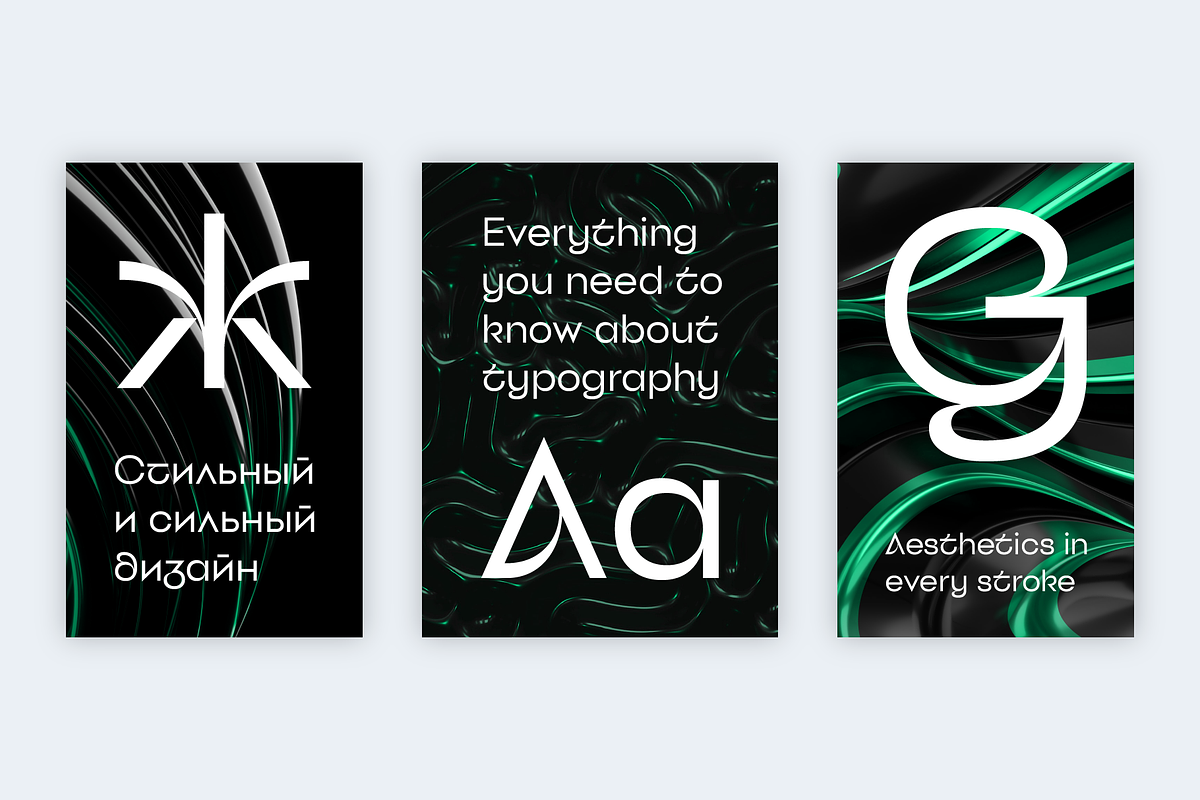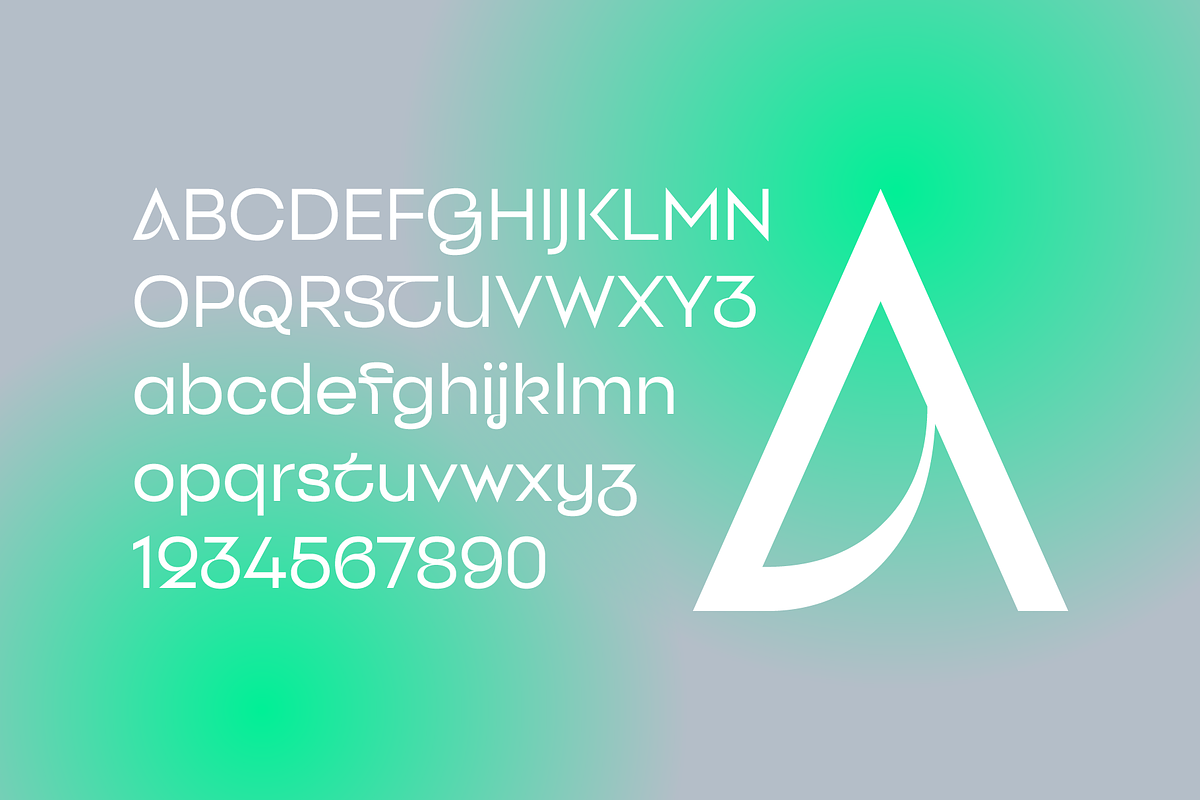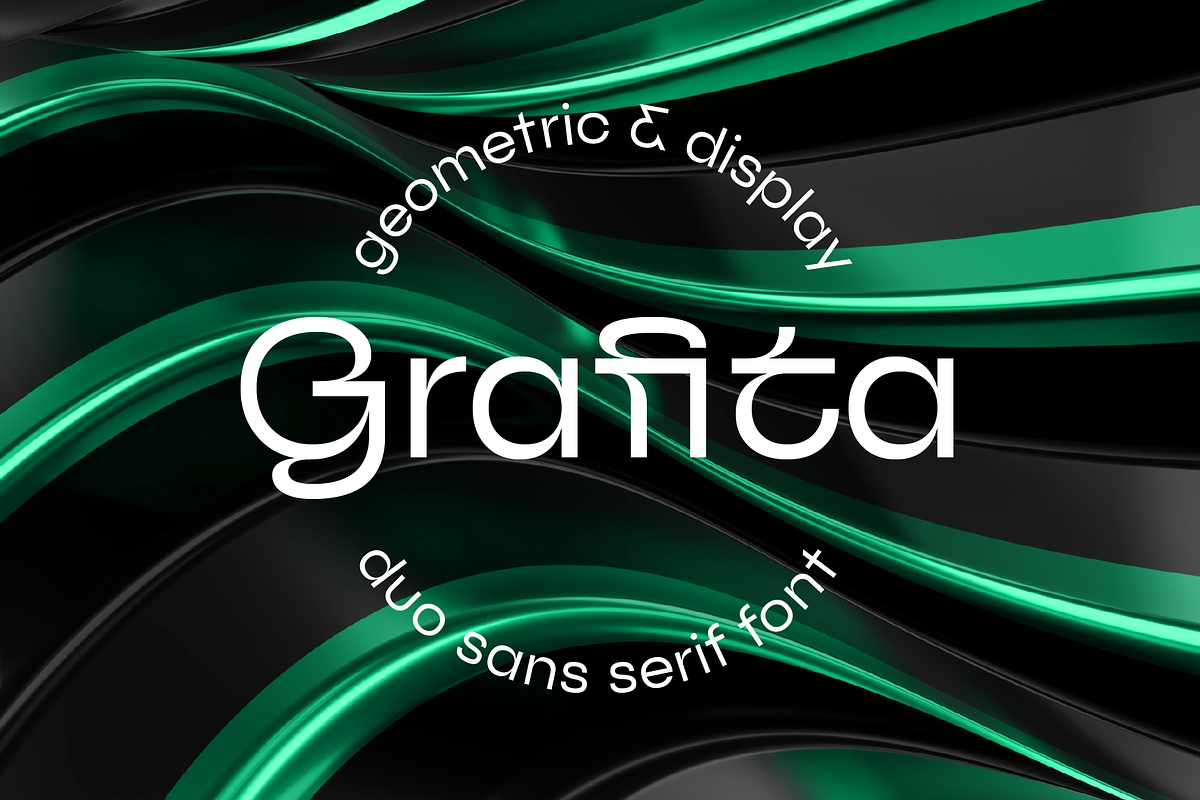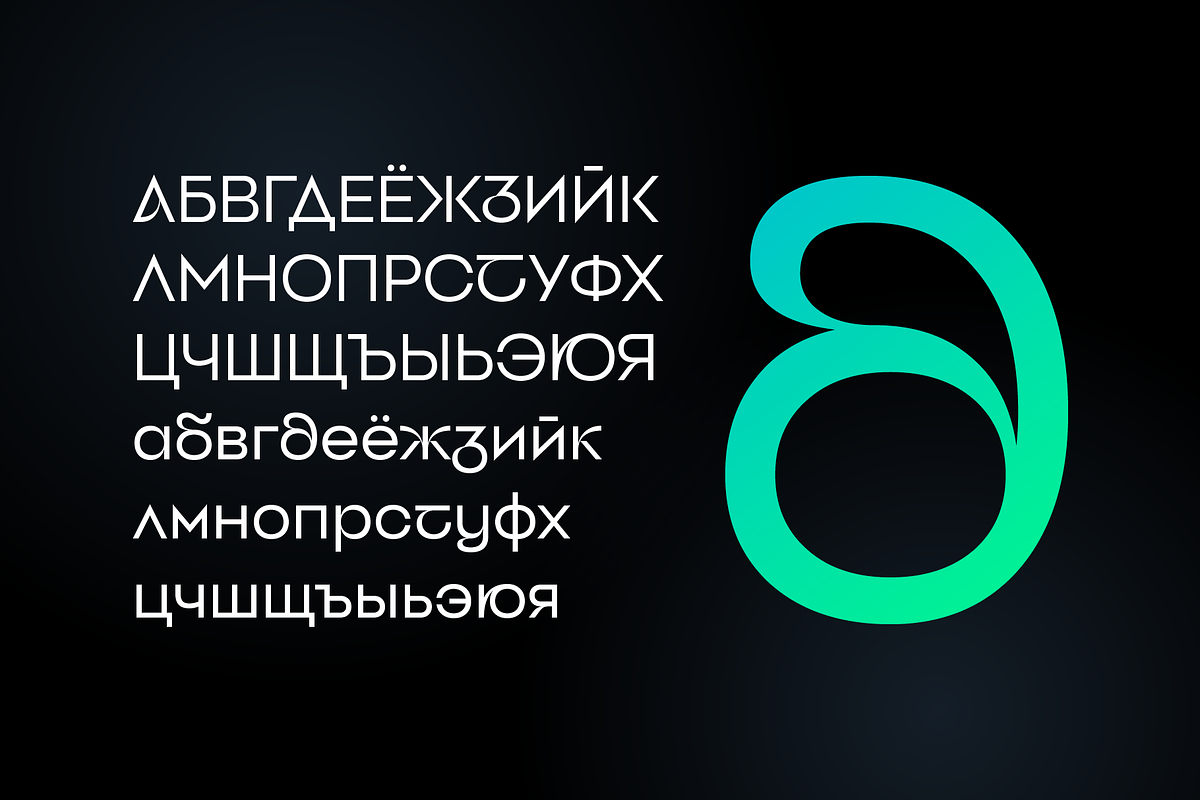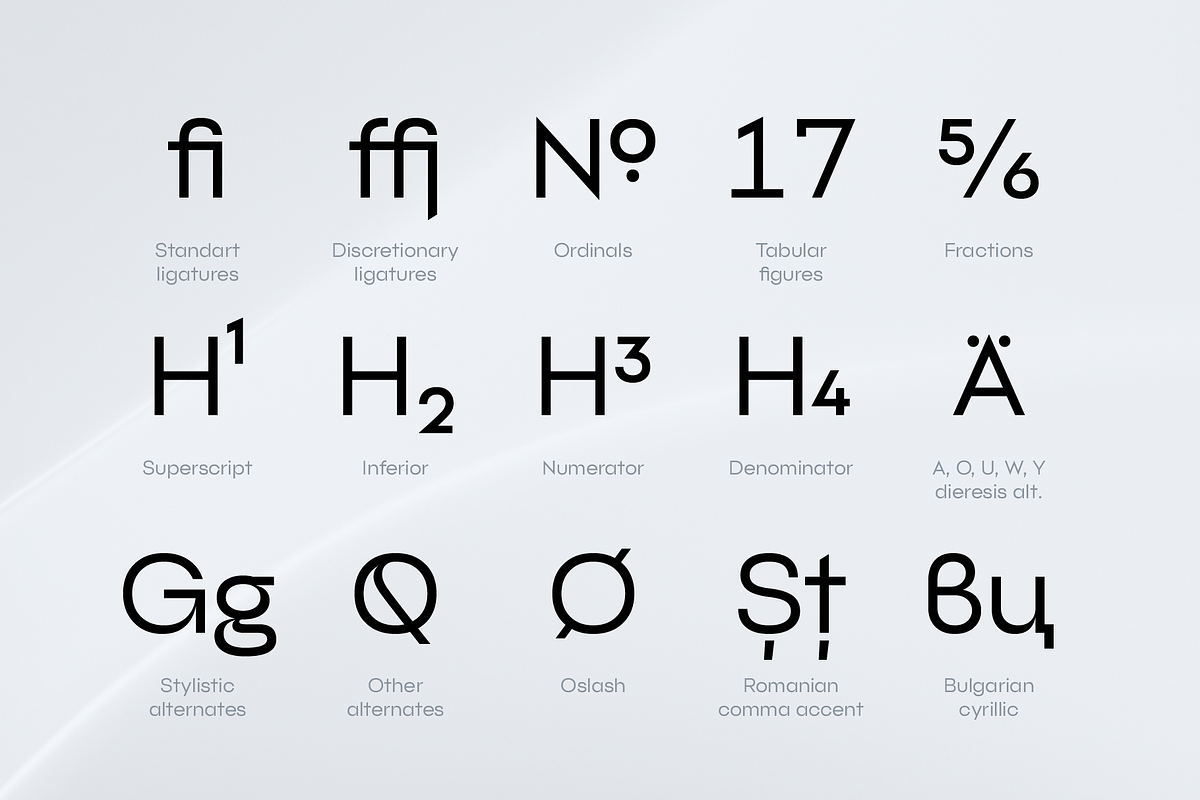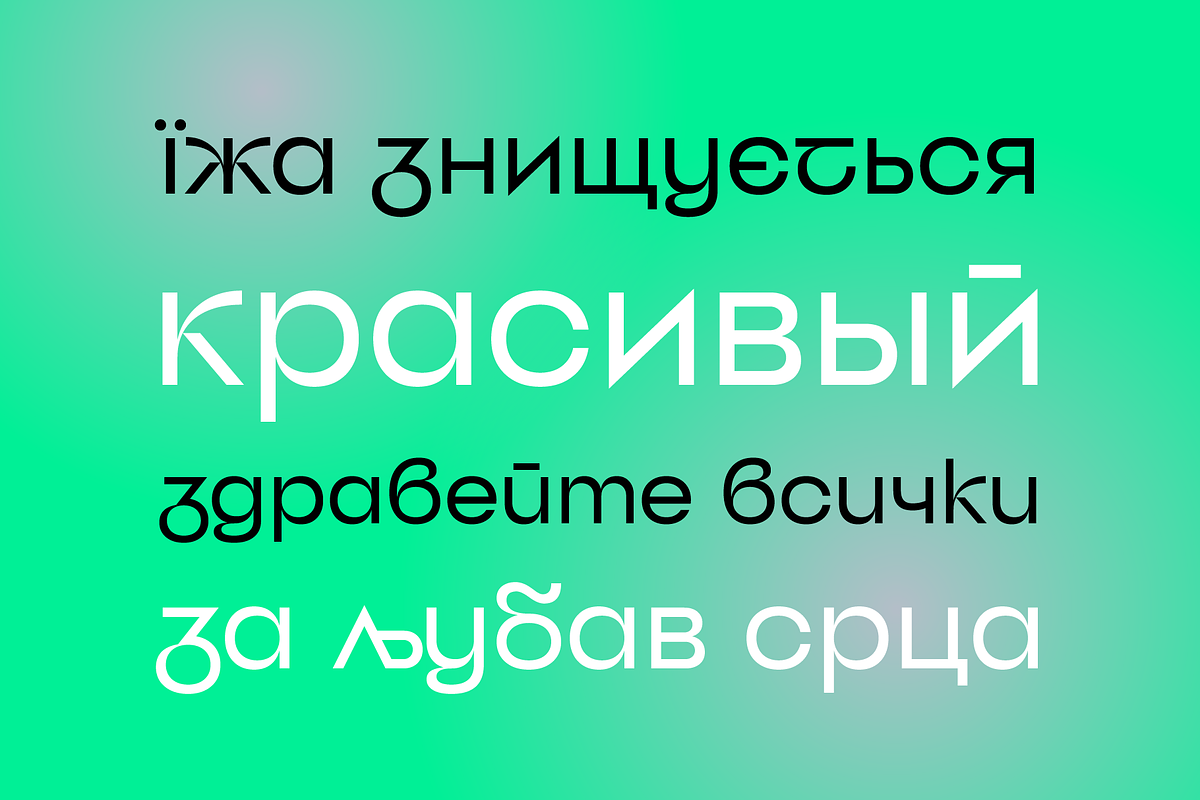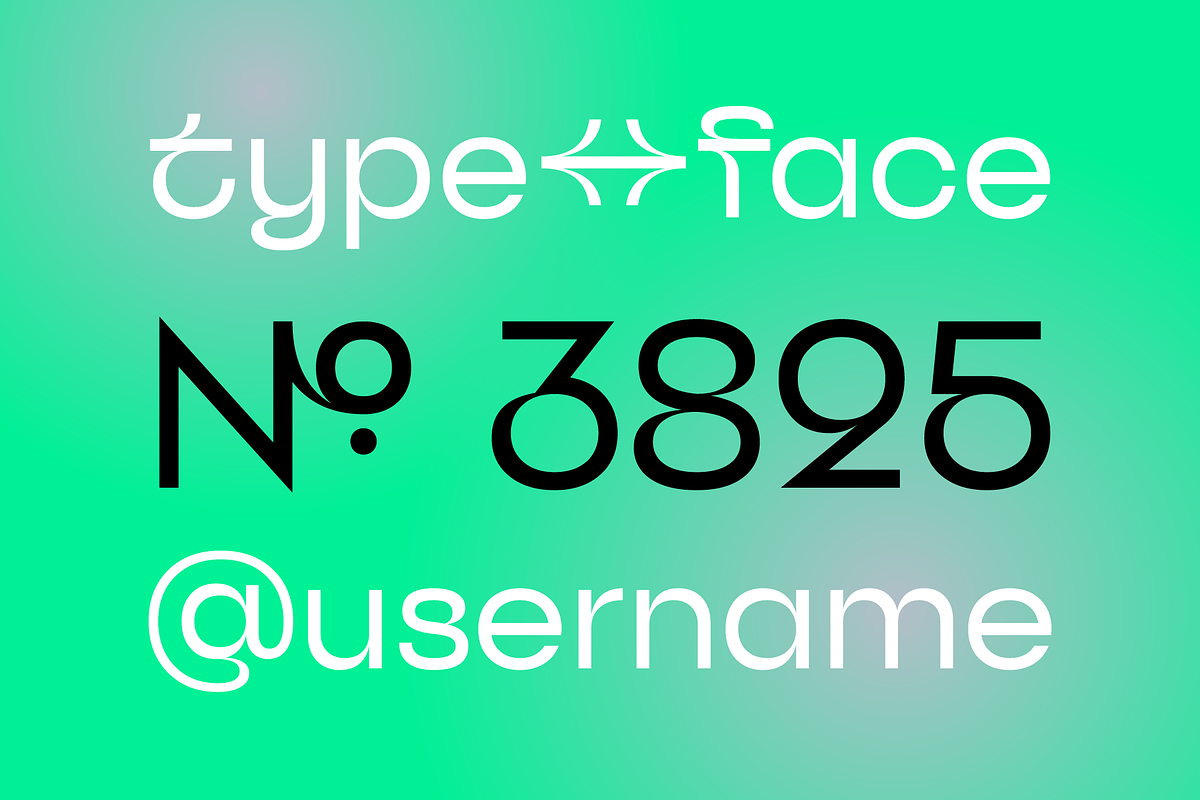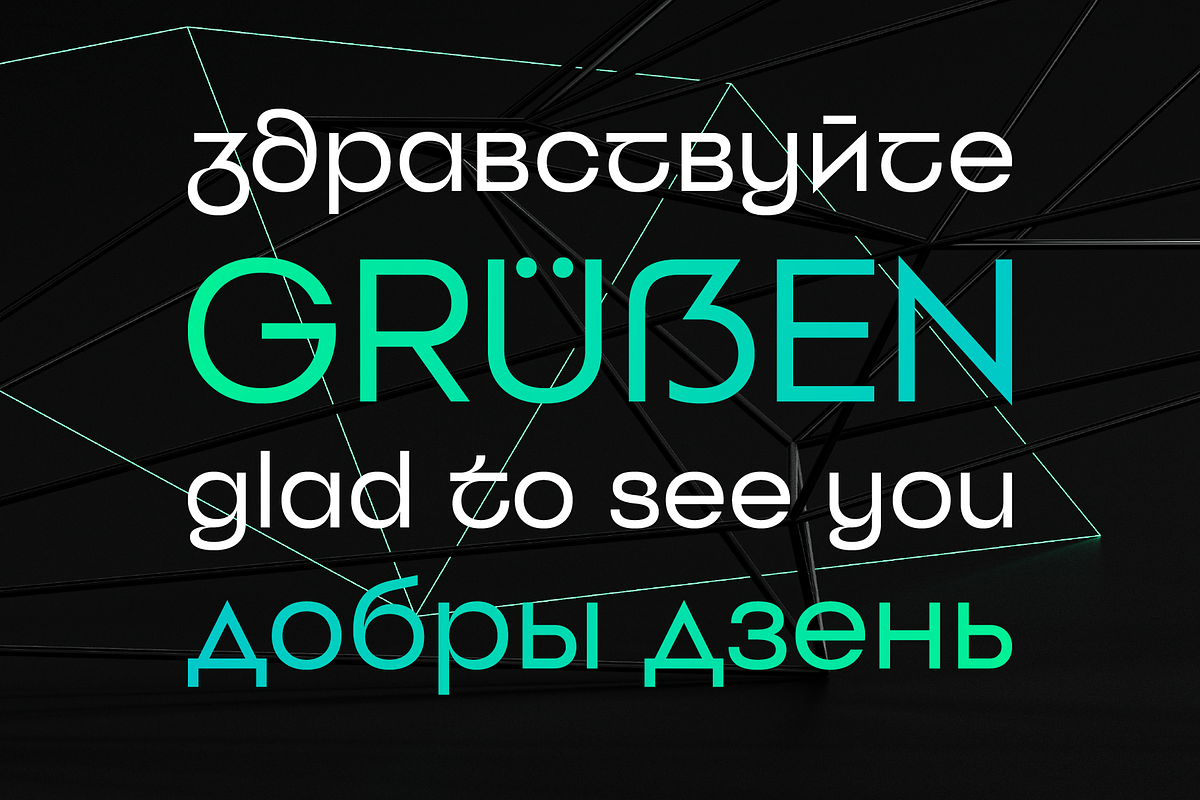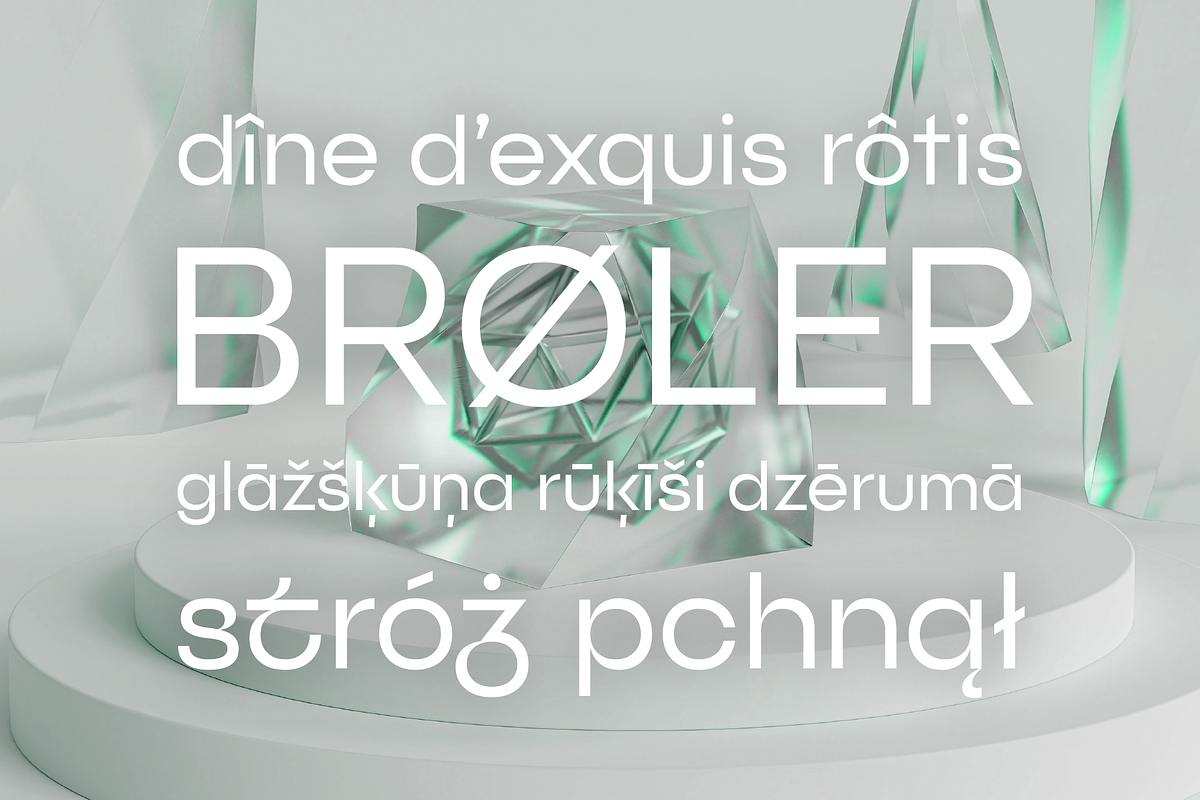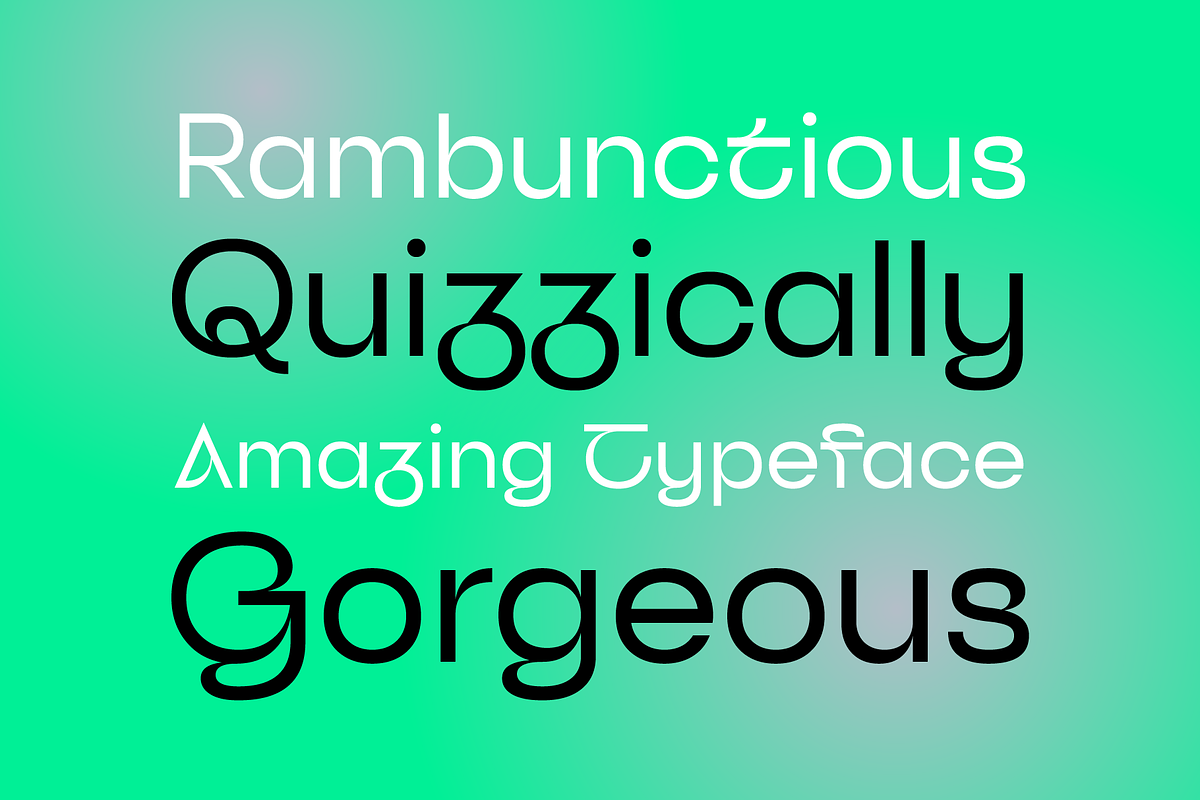
Grafita — display sans serif
Grafita is a two-style typeface system combining a restrained geometric sans serif with a more expressive alternative style. Together, the two styles let designers move between clean, controlled typography and a more distinctive visual treatment while remaining within the same overall typographic family.
Grafita Normal is a versatile geometric grotesque designed for clean typography, headlines, branding, editorial layouts, presentations, websites, and other applications that benefit from a precise and contemporary sans serif.
Grafita Special introduces a more unconventional set of letterforms, transforming the restrained geometry into a distinctive display style. It is especially effective for logos, headlines, posters, covers, packaging, social media graphics, advertising, and identity work where typography needs to attract attention.
Both styles support Latin and Cyrillic scripts with broad multilingual coverage. Grafita Normal contains 621 glyphs, while Grafita Special contains 629 glyphs. Both styles include standard and discretionary ligatures, Romanian and Bulgarian localized forms, fractions, numerator and denominator figures, superscript and subscript figures, monospaced figures, case-sensitive forms, and 6 stylistic sets, including localized forms within two of the sets.
The pairing of a structured base with a more expressive style makes Grafita particularly useful for branding and visual identity systems: one style can provide consistency and readability, while the other can create emphasis and a recognizable signature.